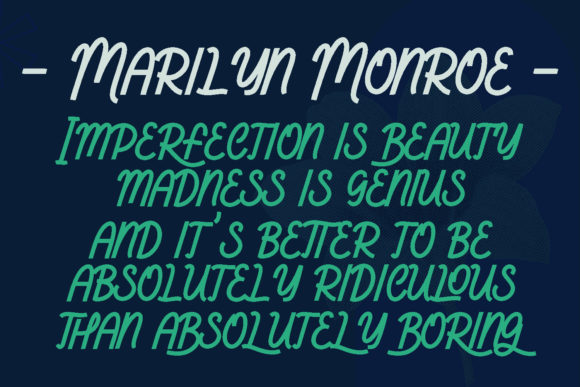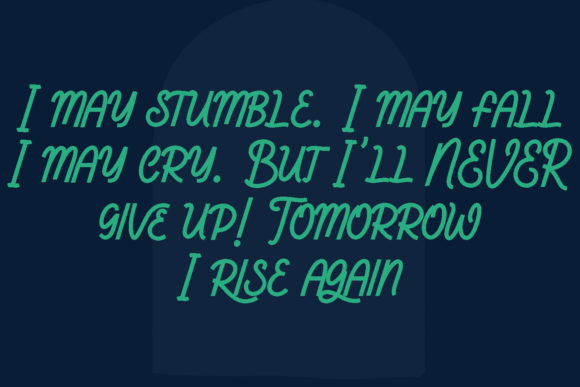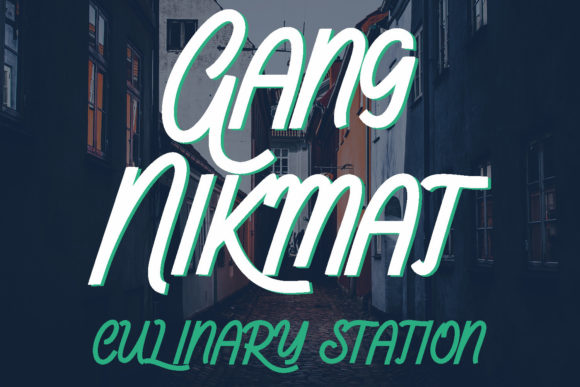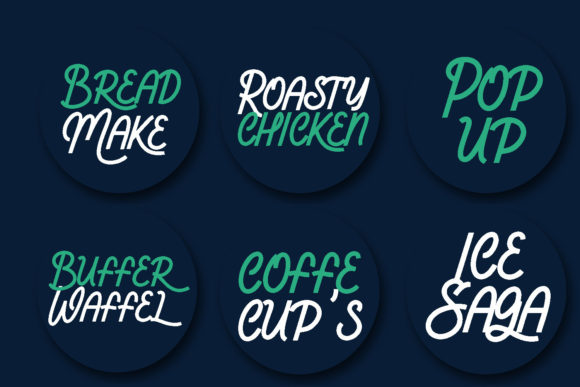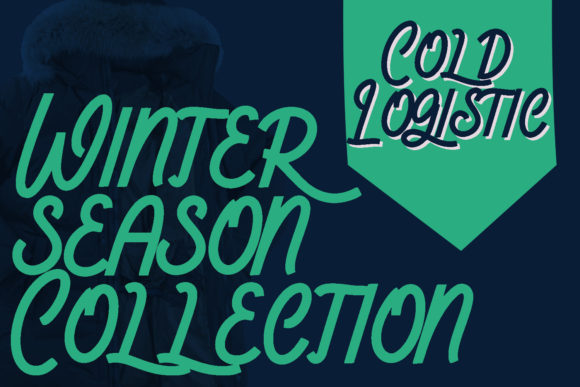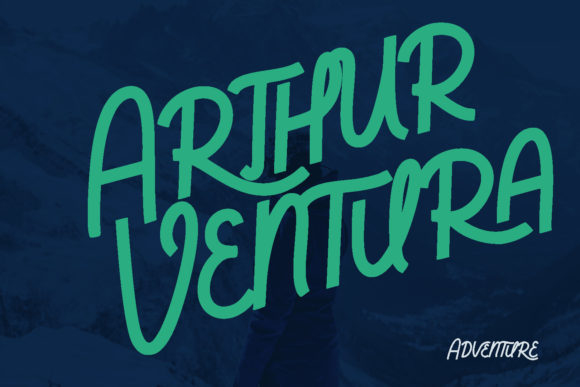
Introduction to Mackers Font
As a designer, there’s nothing quite like that moment when a project comes together – the perfect balance of colors, textures, and typography. But sometimes, that one missing piece can make all the difference. For me, that piece is often the perfect font. And that’s where the Mackers Font comes in – a beautiful, delicate script font that adds a touch of elegance to any design.
Whether you’re working on a high-end branding project or a simple creative endeavor, the Mackers Font is a valuable resource to have in your arsenal. With its transparent background and free download option, it’s easy to incorporate into your design without breaking the bank. And with its high-quality design, you can trust that your project will look professional and polished.
So, what makes the Mackers Font so special? Keep reading to find out, and discover why it’s a must-have for any designer looking to take their creative project to the next level.
Key Features of Mackers Font
- High-quality design resource ideal for creative projects, offering a unique aesthetic.
- Comes with a transparent background, providing flexibility for designers to customize and integrate into various designs.
- Perfect for designers seeking a versatile and high-quality design resource for their creative projects.
Honest Review: Mackers Font
As a designer, I’m always on the lookout for high-quality fonts to elevate my creative projects. I recently stumbled upon the Mackers Font, and I’m excited to share my honest review.
- Unique and quirky design: Mackers Font offers a refreshing take on traditional font styles, making it perfect for designers who want to add some personality to their work.
- High-quality typography: The font is well-designed, with crisp lines and clear typography that’s perfect for print or digital projects.
- Transparent background: Unfortunately, the font comes with a transparent background, which can be a bit tricky to work with, especially for designers who prefer a solid background.
- Limited character set: While the font is well-designed, the character set is relatively limited, which may not be ideal for designers who need to work with a wide range of characters.
Overall, I think the Mackers Font is a great addition to any designer’s toolkit. While it may have some limitations, its unique design and high-quality typography make it a valuable resource for creative projects. Just be aware of the transparent background and limited character set, and you’ll be good to go!
How to Use Mackers Font
Mackers Font is a versatile and high-quality design resource ideal for various creative projects. This font offers a unique aesthetic and can be used to add a personal touch to your designs.
Tips for Getting the Most Out of Mackers Font
- Use the font with a transparent background to create a striking visual effect.
- Combine the Mackers Font with other design elements to add depth and interest to your design.
Common Use Cases for Mackers Font
- Website headers and footers
Alternatives to Mackers Font